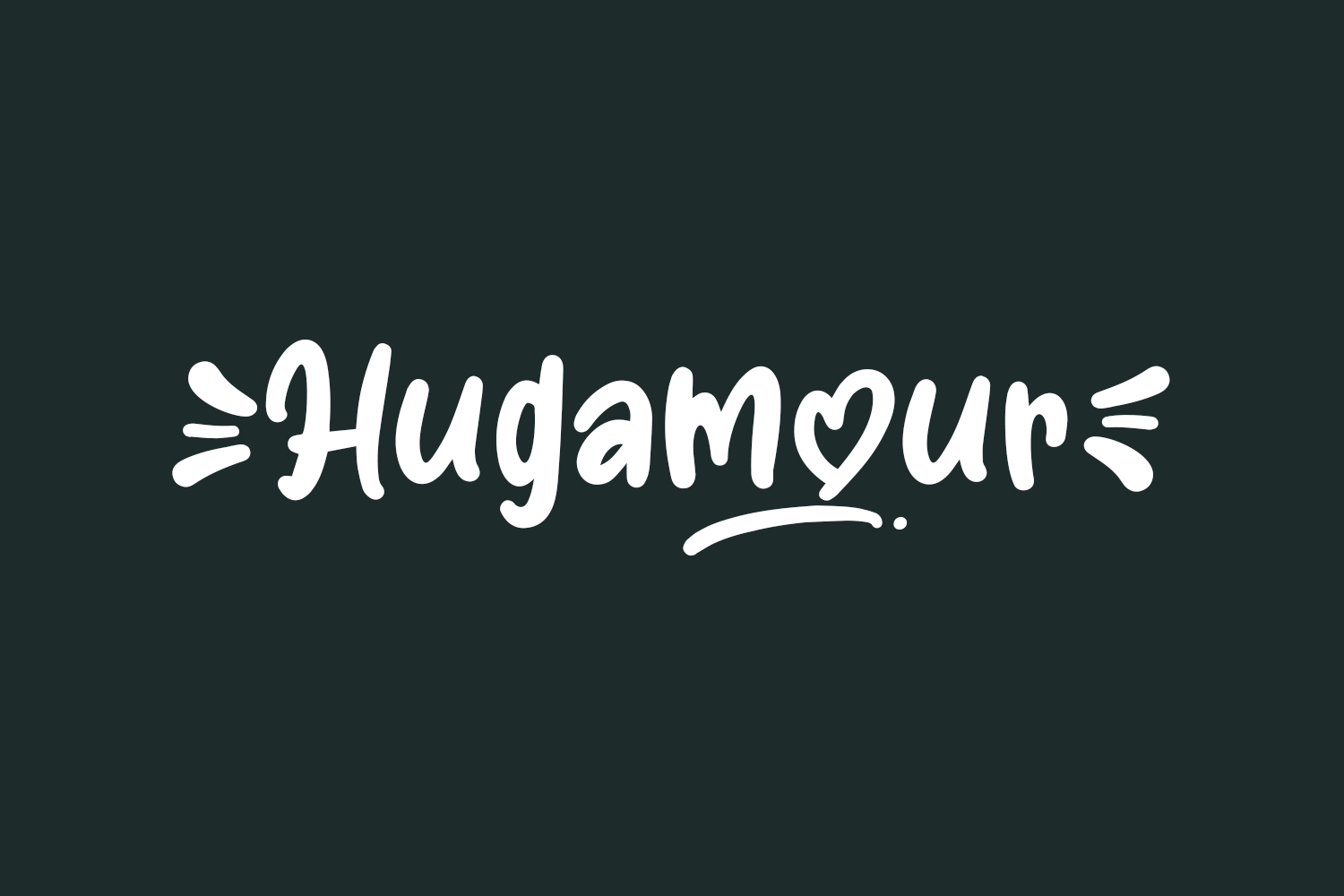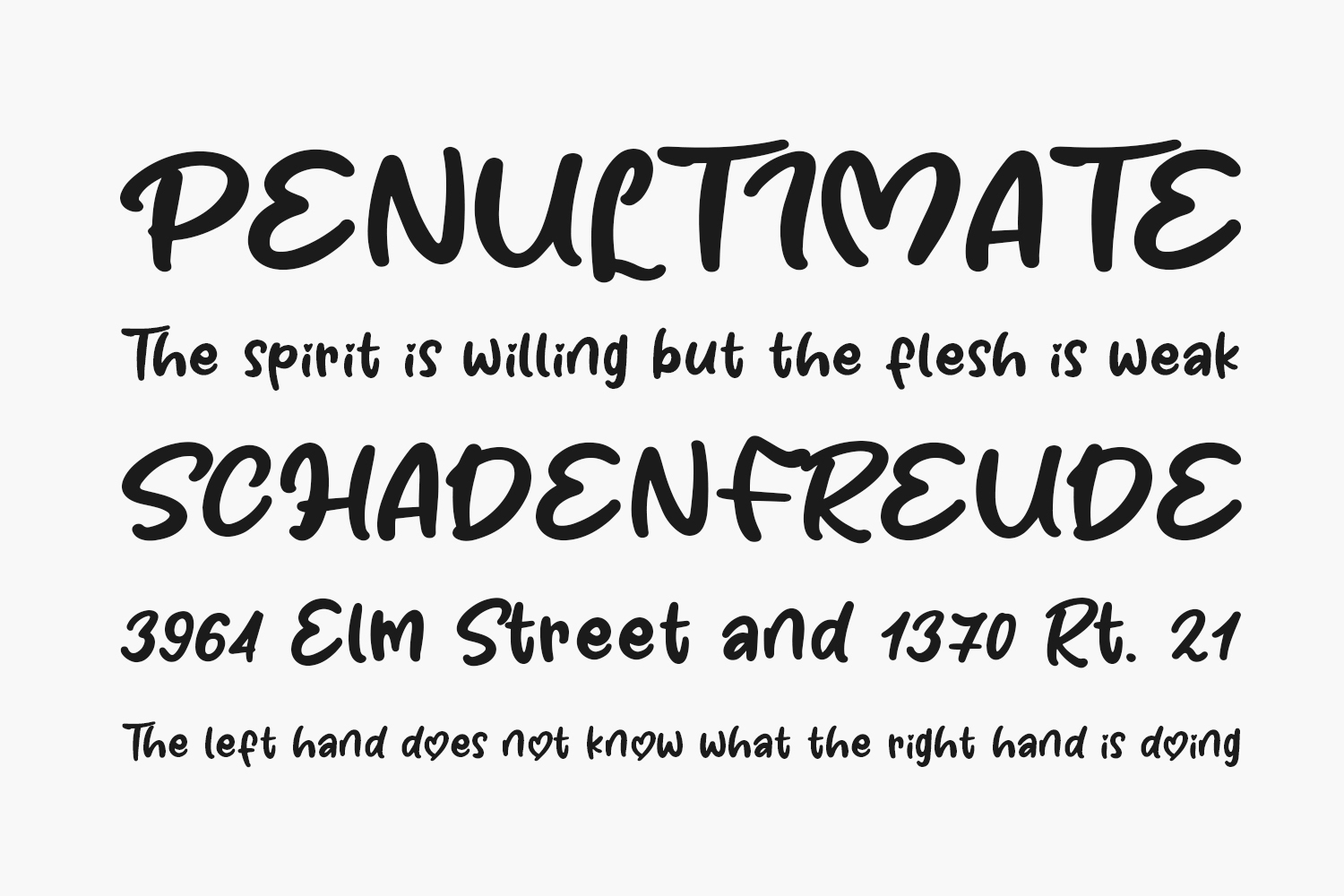
Hugamour Free Font is a modern and elegant display font that exudes sophistication and class. Its sleek, geometric lines and smooth curves create a striking contrast, making it perfect for headlines, titles, and branding. Its unique design gives it a touch of luxury, making it a perfect choice for fashion, luxury goods, and high-end product packaging. Its versatility also makes it suitable for a wide range of design projects, from posters and billboards to websites and mobile apps. Download Hugamour Free Font and add a touch of elegance to your next design project.